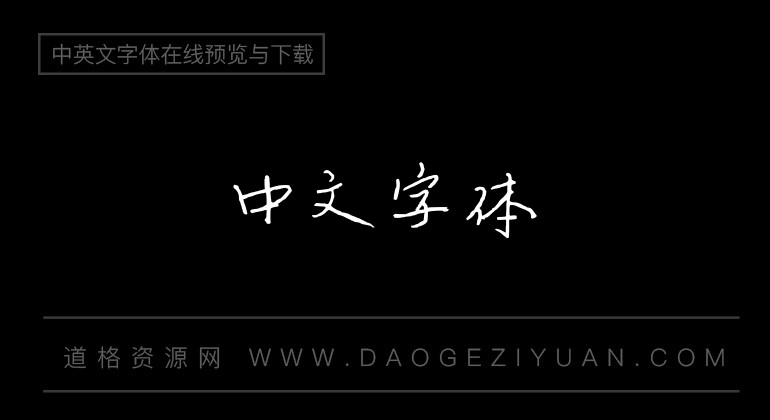
? Anzhiruo Element is a Chinese character font created by Japanese designer Ando Ruosu. It has relaxed lines, clear structure, and gives people a warm feeling. It is a very popular Chinese character font. It is characterized by simple and clear font structure, delicate strokes, strong sense of space, easy to read, and suitable for printing, web pages, etc.Content introduction
An Zhiruo Body is a very good handwriting art font, with a good visual sense, suitable for cultural propaganda design, commercial brand advertising and product packaging design and personalized text typesetting and other more scenes.